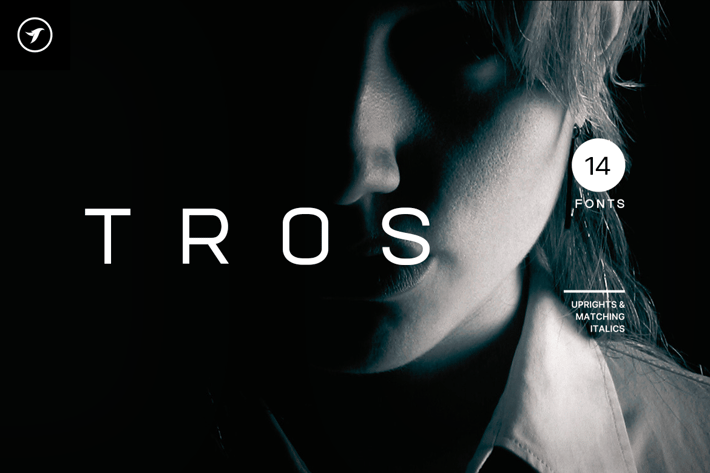
TROS - Unique & Modern Display Font Family
TROS is a unique and modern font family that features a Sans Serif/Display/All-Caps style. This font family stands out due to its unique and distinctive design. It is best suited for creating branding, logotypes, headlines, corporate identities, and marketing materials for both web and print. When used for minimal designs, TROS is particularly effective.
Thanks to its efficient letter spacing options, this versatile font offers endless possibilities for modern and minimalist designs, including logos, headlines, and identities. Please see the included demo graphics to get an idea about the capability of this typeface when used for branding and marketing material design. To get a better idea of the capabilities of this font, please refer to the included demo graphics.
TROS font family comes with 14 fonts, including five upright weights (THIN / EXTRA LIGHT / REGULAR / MEDIUM / BOLD / BLACK) as well as Italic versions of all five weights. Each weight includes extended language support including Western European & Central European sets. A total of 250 glyphs are included.
FEATURES:
TROS font family includes a collection of 14 fonts in total, with seven upright weights and Italic equivalents of all seven weights as follows:
Thin
Thin Italic
ExtraLight
ExtraLight Italic
Light
Light Italic
Regular
Italic
Medium
Medium Italic
Bold
Bold Italic
Black
Black Italic
250 GLYPHS INCLUDED:
Handcrafted and designed with powerful OpenType features in mind, each weight includes extensive language support with Western European, Central European, and South Eastern European sets. A total of 250 glyphs are available.
Scripts: Latin